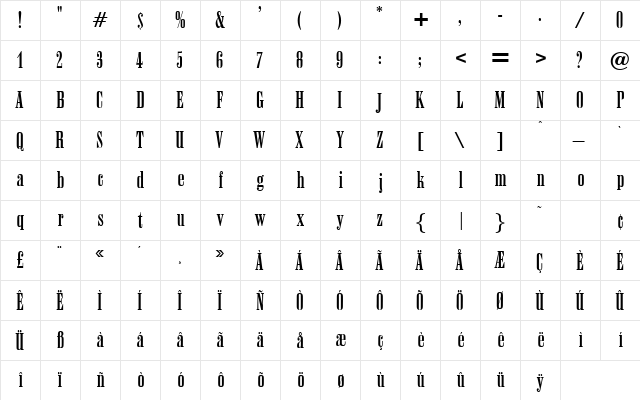
Amossa Regular
Design Context for Amossa Typeface
Amossa is a composed and adaptable typeface that performs quietly and consistently across a wide range of design contexts.
Pro Tip: Pair Amossa with a font of contrasting weight or personality to build a more expressive typographic hierarchy.